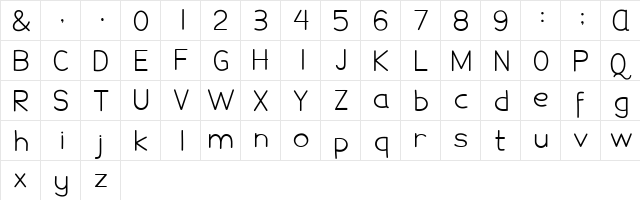
Damai Pelajar Regular
Design Context for Damai Pelajar Typeface
Damai Pelajar offers clean, dependable letterforms without strong stylistic allegiance, making it a practical choice for designers who need flexibility.